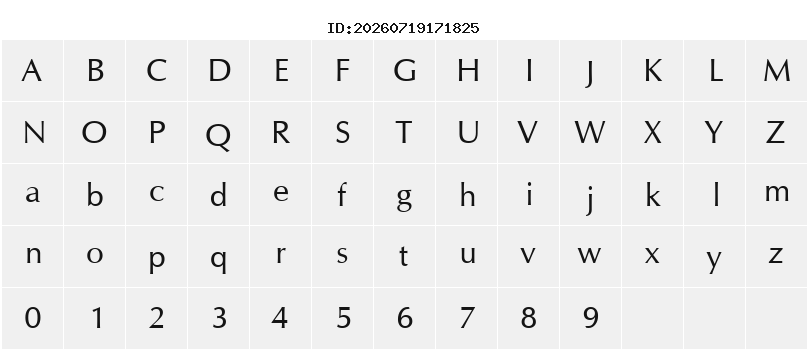
CG Omega Preview
• Font Name: CG Omega
• Full Font Name: CG Omega
About CG Omega.ttf
CG Omega.ttf is a modern, elegant sans-serif font designed for ultimate readability and visual harmony. Perfect for branding, headlines, web design, and print materials.